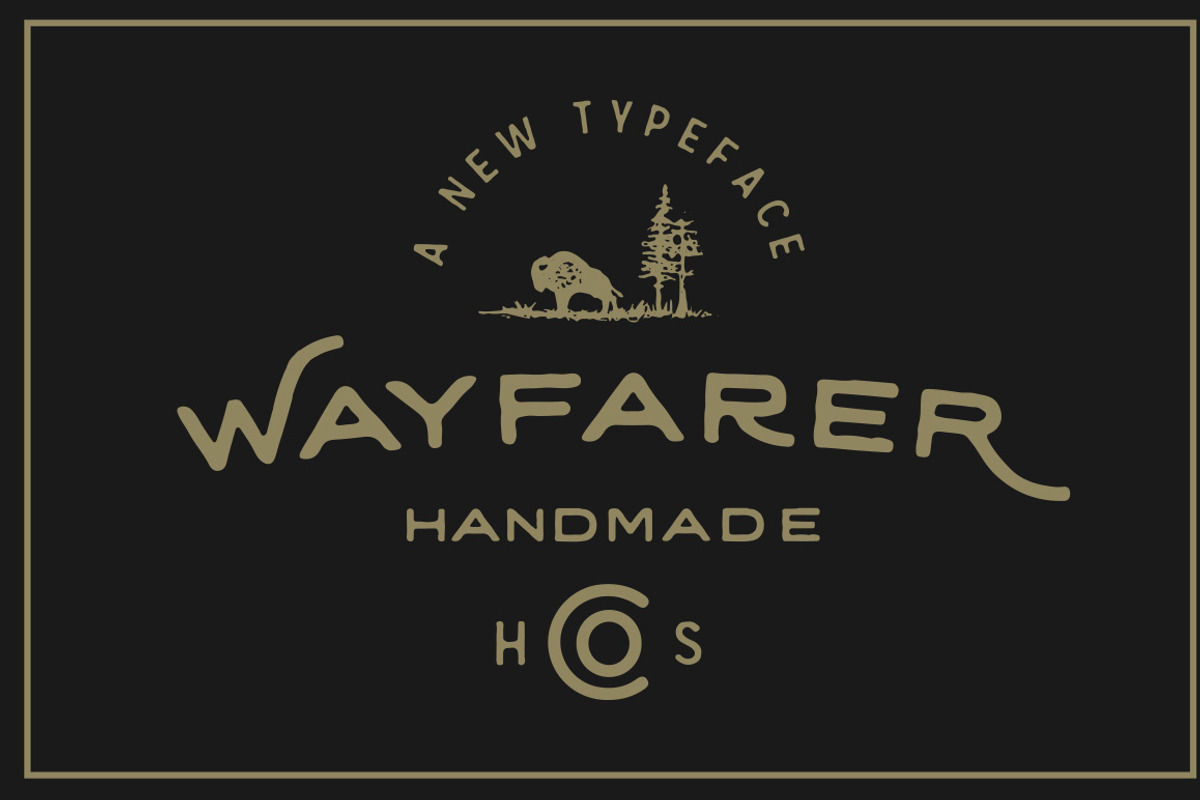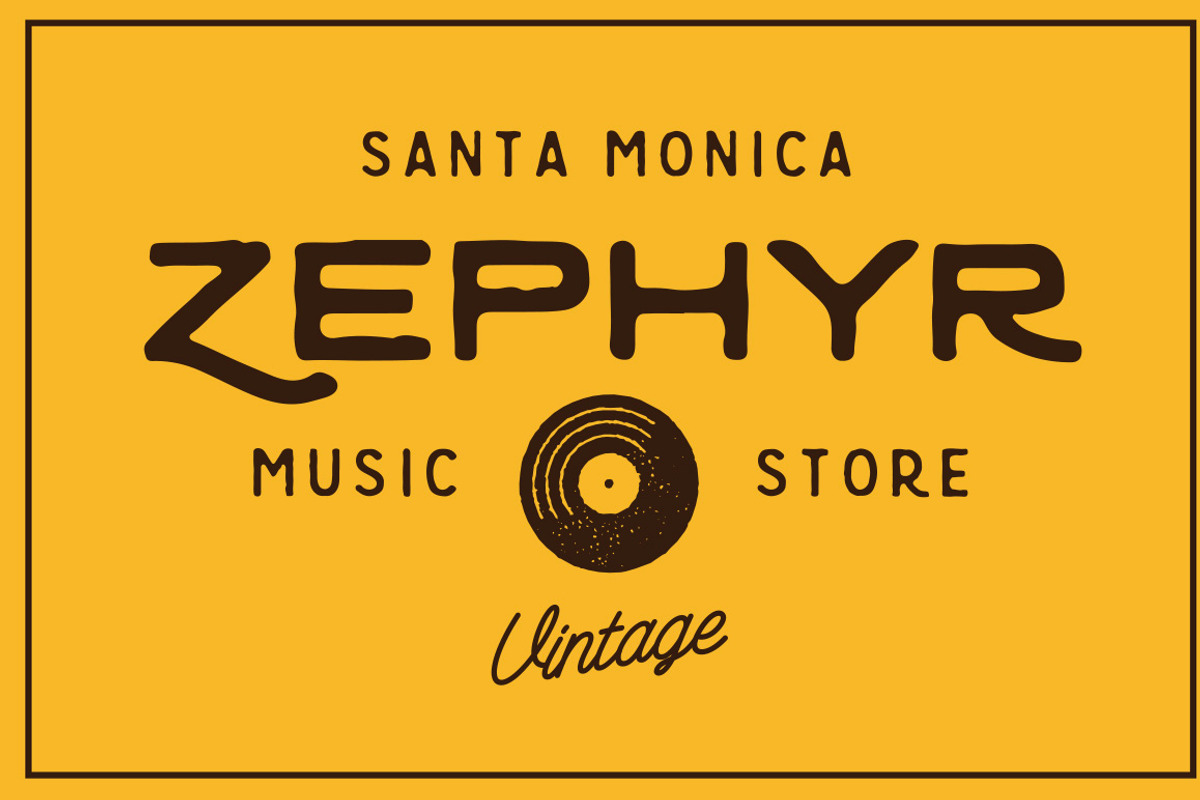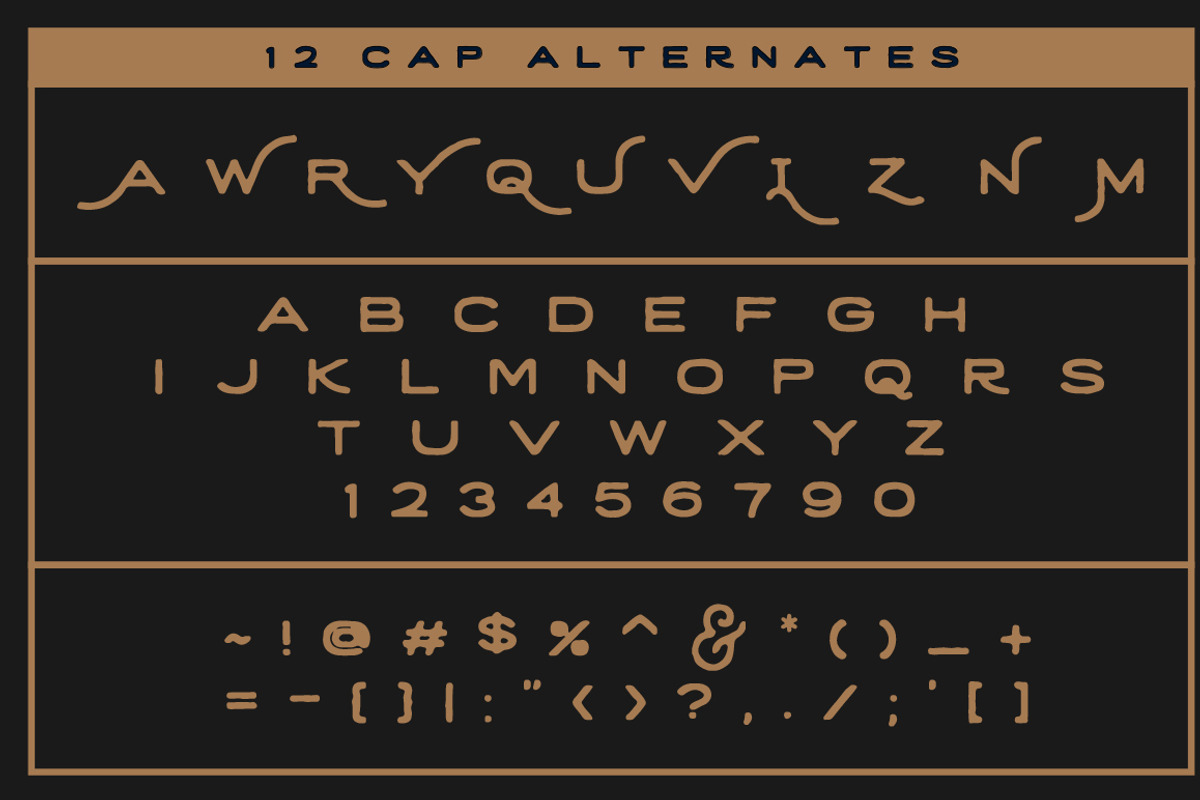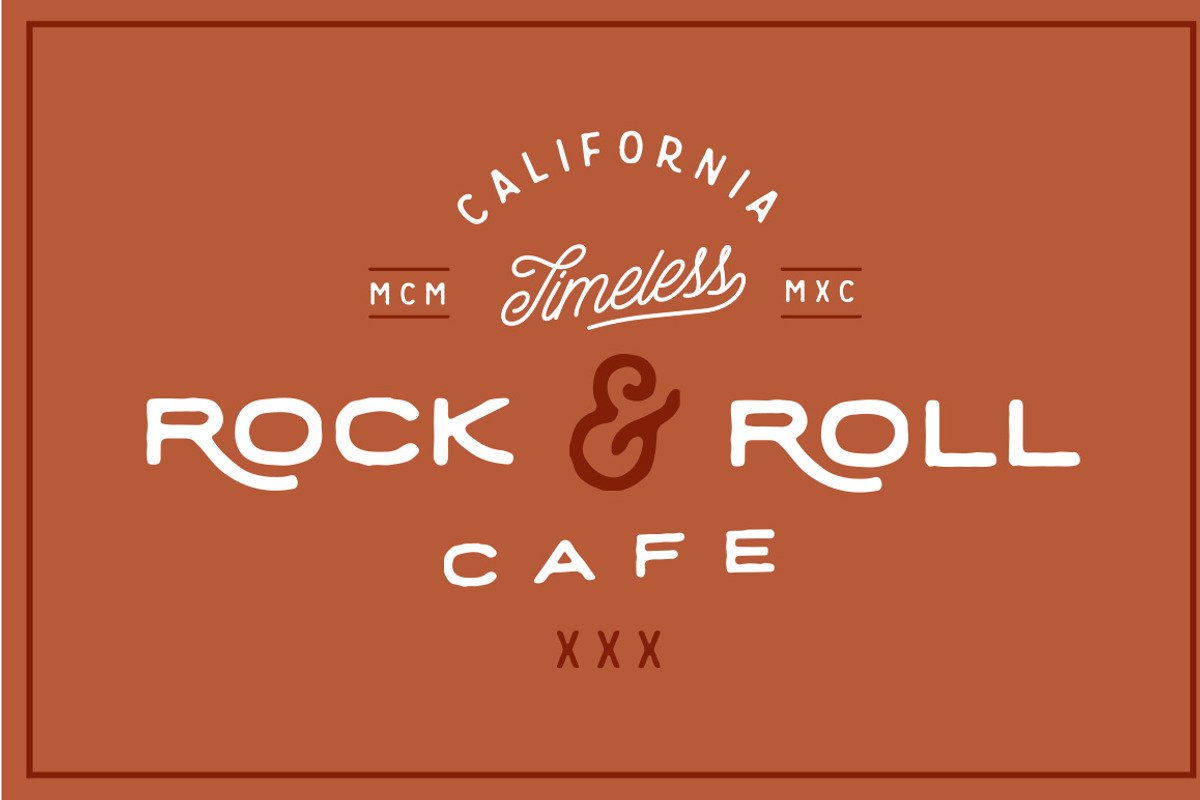
Wayfarer - Hand Drawn Font
Wayfarer - Hand Drawn Font by Hustle Supply Co. is a font selected for branding, posters, packaging, typography.
- I wanted to give users more options so I included a full range of Glyphs.
- I've also included Alternate Capital letters for A, W, R, Y, Q, U, V, L, Z, N & M.
- I wanted to give users more options so I included a full range of Glyphs.
- I've also included Alternate Capital letters for A, W, R, Y, Q, U, V, L, Z, N & M.
Why Wayfarer - Hand Drawn Font is worth a look
Wayfarer - Hand Drawn Font by Hustle Supply Co. fits naturally into Branding, posters, packaging, typography.